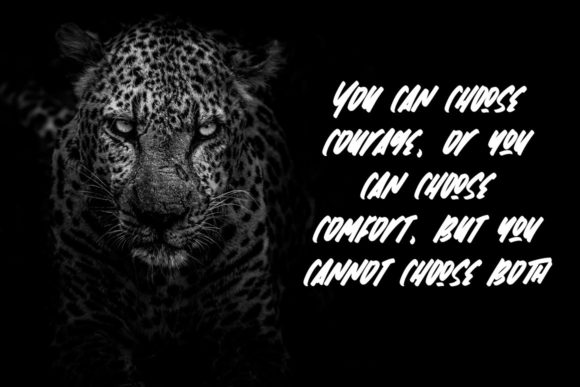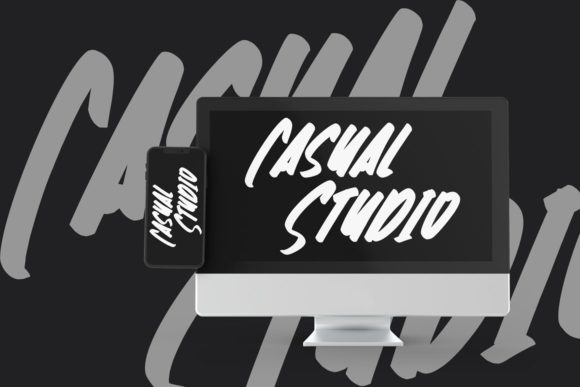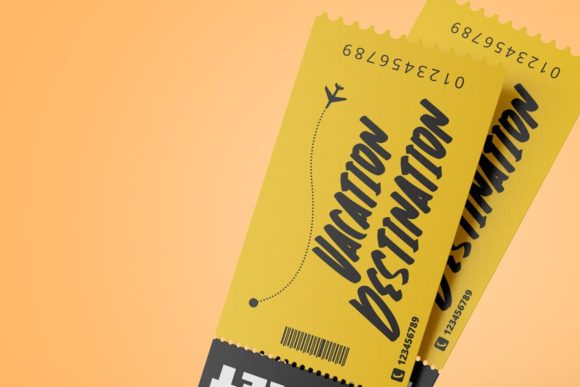
Introduction to Loathing Font
Remember that moment when you’re working on a creative project, and you’re stuck on finding the perfect font to elevate your design? You’ve tried countless options, but nothing seems to capture the essence of your vision. That’s when you stumble upon a game-changer – a font that makes your design pop and leaves a lasting impression. For many designers, that magic font is the Loathing Font.
This bold and thick display font is a design resource that’s hard to resist. With its high quality and versatility, it’s the perfect addition to any creative project. Whether you’re working on a logo, a poster, or a social media graphic, the Loathing Font is sure to make your design stand out. And the best part? It’s available for free download, making it an accessible design resource for designers of all levels.
Key Features of Loathing Font
- High-quality, unique font design with a transparent background, ideal for creative projects and design resources.
- Large character set with over 1000 glyphs, including international characters and symbols, making it a versatile design resource.
- Resolution-independent design, suitable for use in a variety of sizes and resolutions, from small web graphics to large print materials.
- Customizable and editable, allowing designers to tailor the font to their specific creative project needs.
Honest Review: Loathing Font
I recently had the chance to work with the Loathing Font, and I have to say, it’s been a game-changer for my creative project. The first thing that caught my eye was the high quality of the font, which is perfect for any design resource. With a transparent background, it’s incredibly versatile and easy to use.
Here are some things that work well:
- ✨ Unique and quirky design that adds a touch of personality to any project
- ✨ High quality, crisp and clear font that’s perfect for print and digital designs
However, I did notice a few limitations:
- ⚠️ Limited font styles, which might not be ideal for projects that require a wide range of font options
- ⚠️ Some users may find the font too quirky or unconventional, which might not be suitable for all design projects
Overall, I’m really impressed with the Loathing Font. It’s a great design resource that’s perfect for designers looking for something unique and high-quality. While it may have some limitations, I think it’s definitely worth checking out, especially considering it’s a free download.
Tips for Getting the Most Out of Loathing Font
Use the transparent background feature of Loathing Font to create stunning designs with a clear, unobstructed view of the background. Experiment with different font sizes and styles to add visual interest to your design. Use Loathing Font in combination with other design resources to create a unique and eye-catching design.
Common Use Cases for Loathing Font
Loathing Font is perfect for creative projects that require a unique and eye-catching font. Some common use cases include graphic design, digital art, and social media graphics. The transparent background feature makes it ideal for use on images with complex backgrounds. The high-quality design of Loathing Font makes it a great choice for any project that requires a professional-looking font.